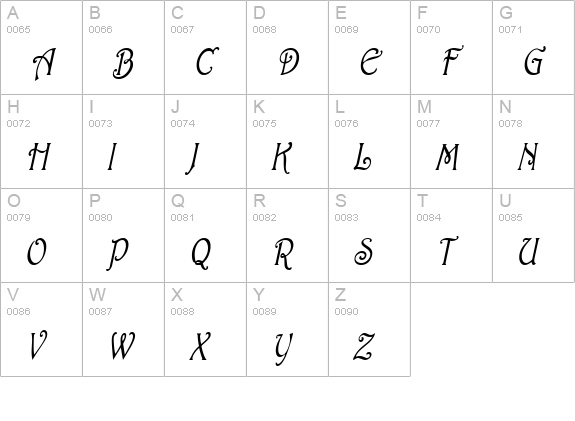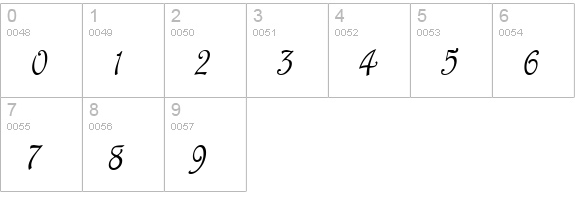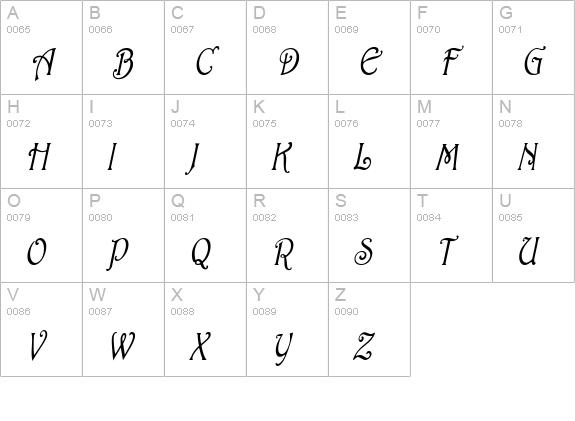
ParisianCondensed Italic Font Details
ParisianCondensed Italic is a distinctive, italic variant in the ParisianCondensed typeface family \xE2\x80\x94 well suited to design and typography projects.
ParisianCondensed Italic is a stylish and sophisticated font that exudes the elegance and charm of the city of love, Paris. With its sleek and slender design, this font captures the essence of the Parisian lifestyle, effortlessly blending tradition with a contemporary twist. The italicized letterforms of ParisianCondensed Italic add a touch of flair and grace to any design project. Whether used for headings, invitations, or branding materials, this font lends a sense of refinement and refinement to any piece of work. What sets ParisianCondensed Italic apart is not only its exquisite design but also its accessibility. This font is freely available to download at FontsMarket.com, making it accessible to designers, artists, and creatives from all walks of life. No longer do you need to break the bank to achieve a high-end, Parisian-inspired look; ParisianCondensed Italic is here to fulfill your design needs, completely free of charge. With its extensive character set, ParisianCondensed Italic is versatile and adaptable to various design contexts. From delicate wedding invitations to modern corporate branding, this font effortlessly conveys a sense of sophistication and refinement. Don't miss the opportunity to add a touch of Parisian elegance to your designs. Download ParisianCondensed Italic today from FontsMarket.com and unleash your creativity with this stunning and freely available font.